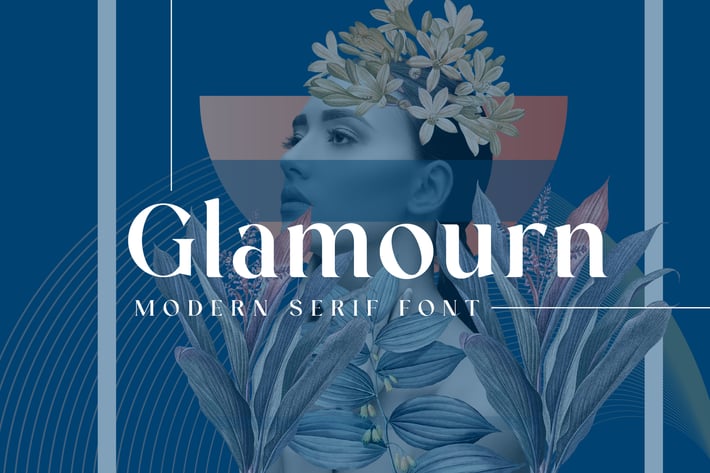
Glamourn Display Font
Proudly Present, Glamourn Display Font.
Glamourn is a Beautiful Calligraphy font.
Glamourn is perfect for product packaging, branding project, megazine, social media, weddings, or just used to express words above the background.